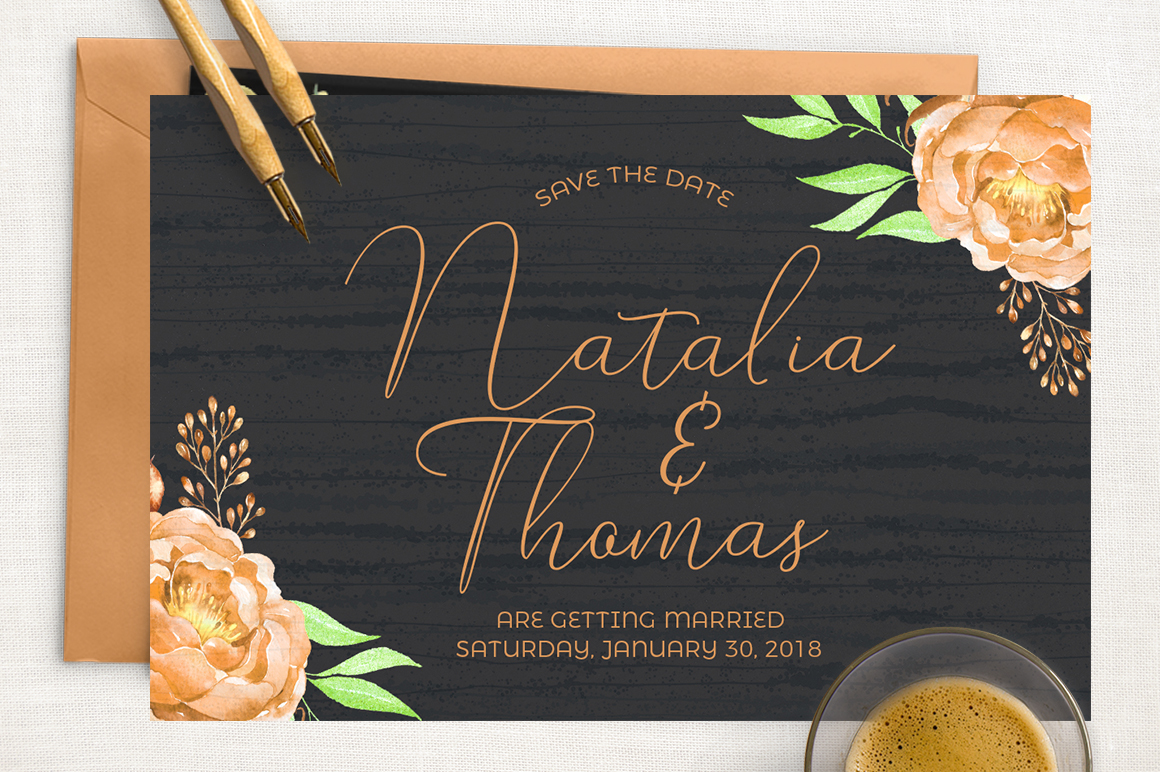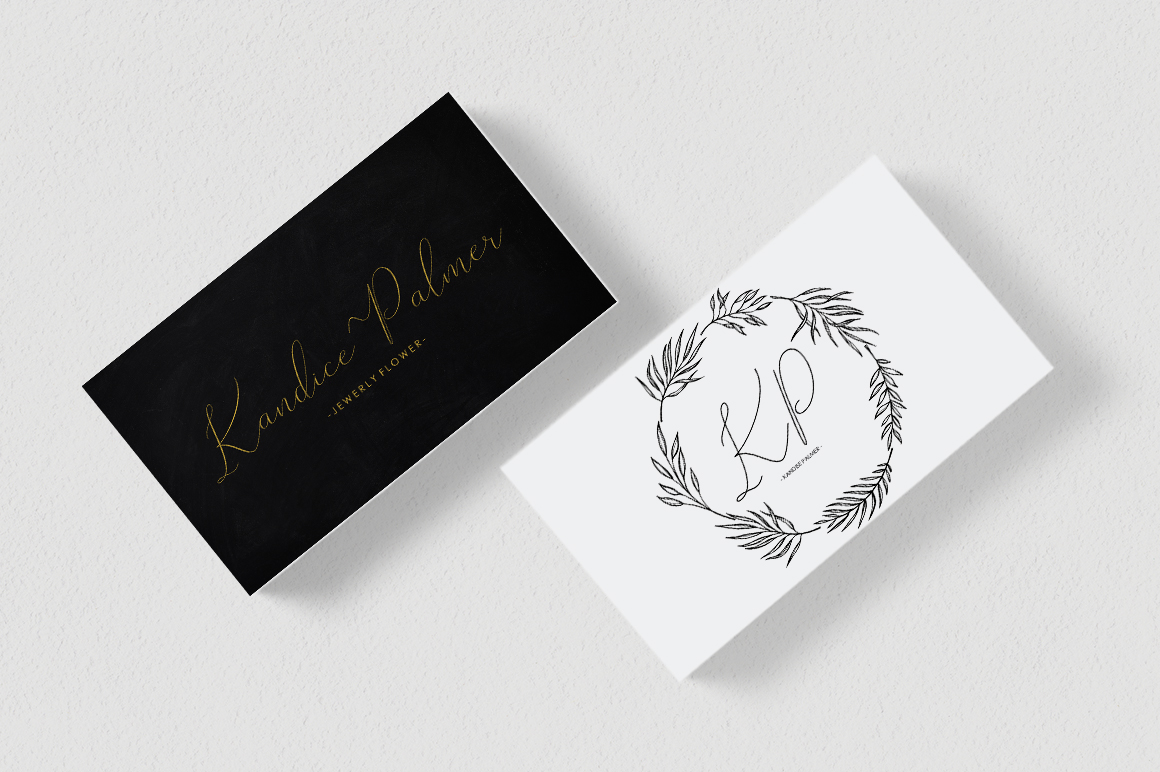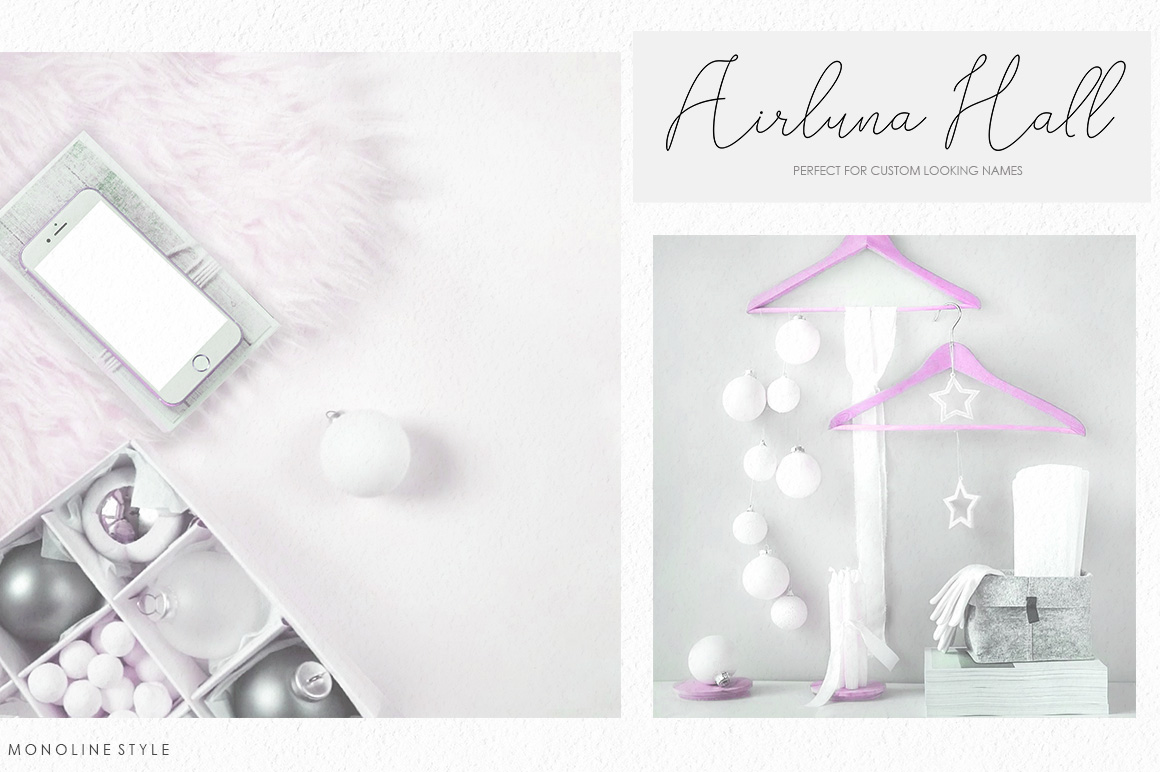
Introduction to Rishella Font
Rishella is a elegant signature font.
Because the font is constructed with very thin lines, it has a classy look, which looks great on personal and luxury corporate designs .